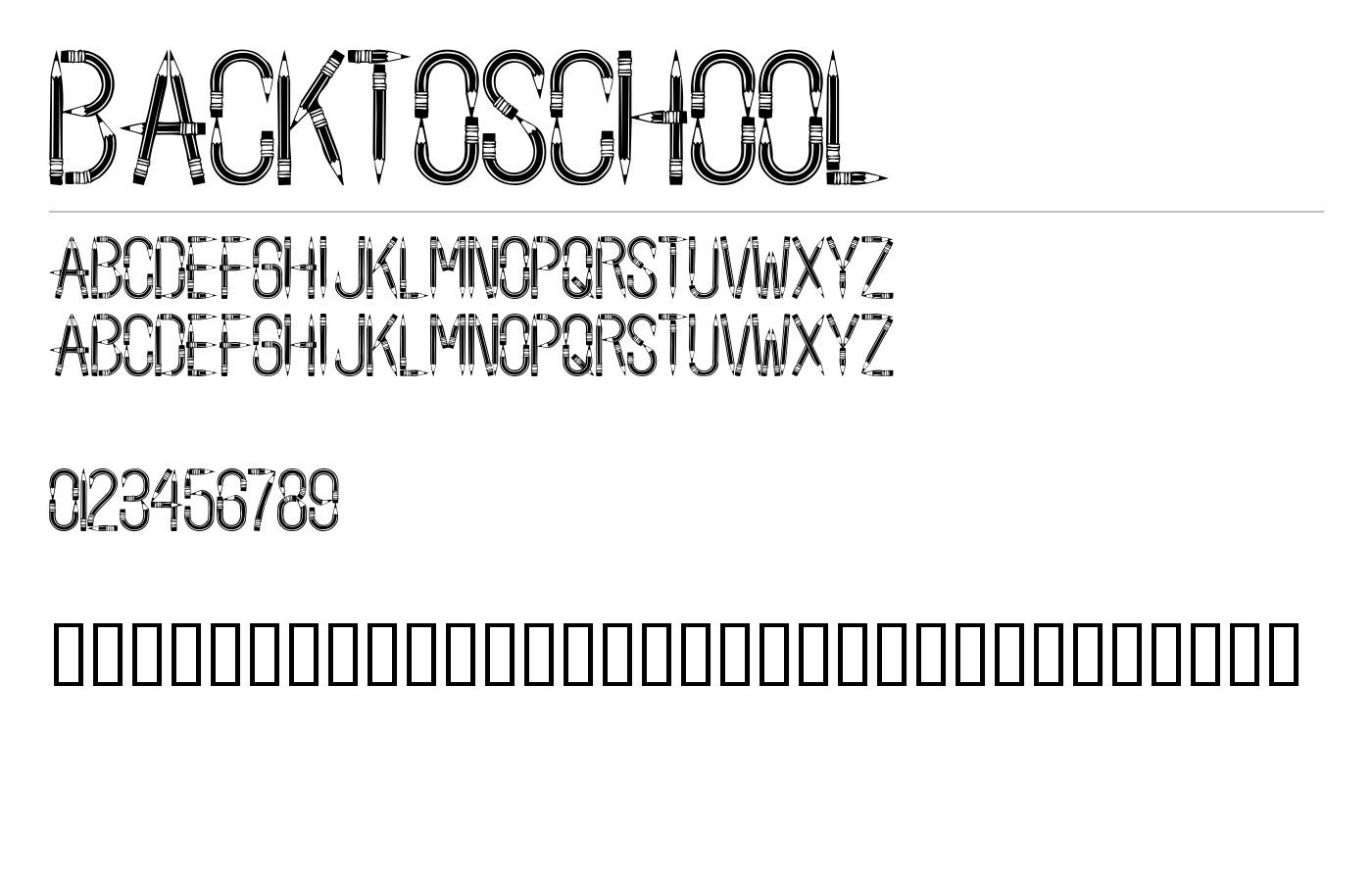
BackToSchool Font is a playful and creative sans serif typeface that mimics the look of pencils, making it perfect for educational and child-friendly designs. Its tall, narrow letterforms with whimsical pencil details add a fun and approachable feel, ideal for school-related projects, posters, and branding that seeks to evoke learning and creativity. This font works best in display use where its unique and imaginative style can shine and capture attention.
BackToSchool Font
About BackToSchool Font